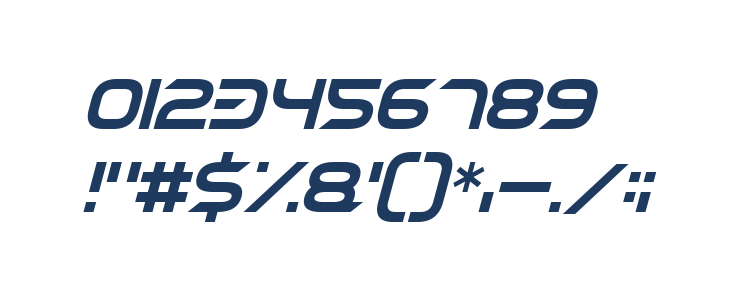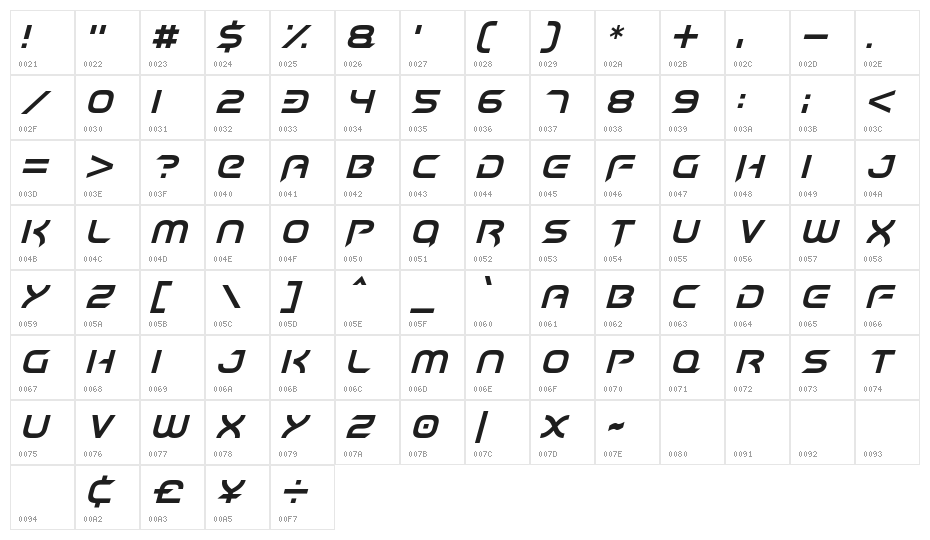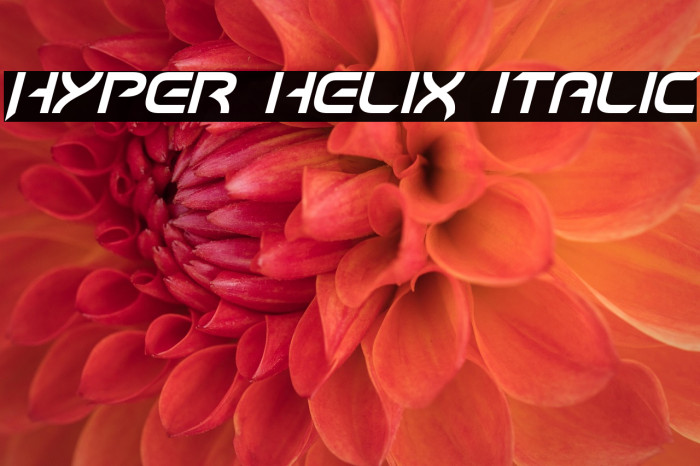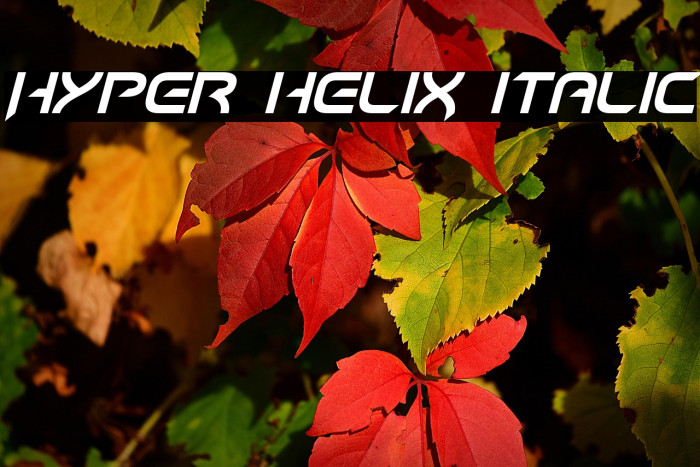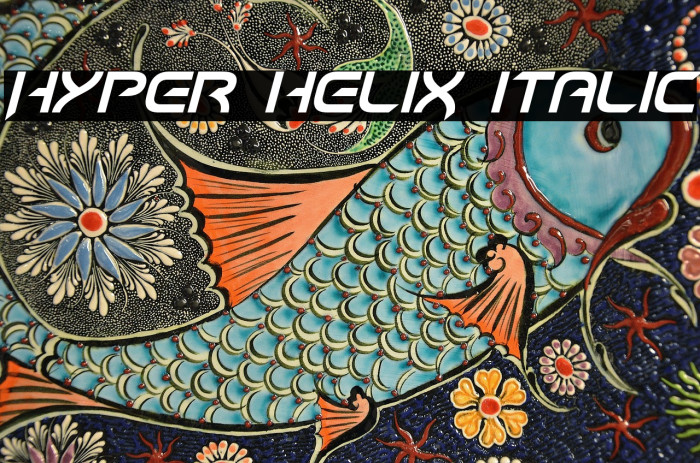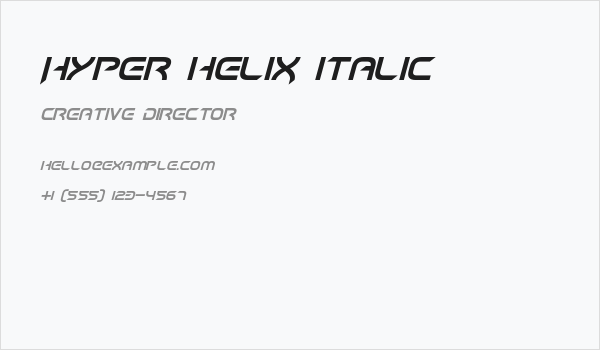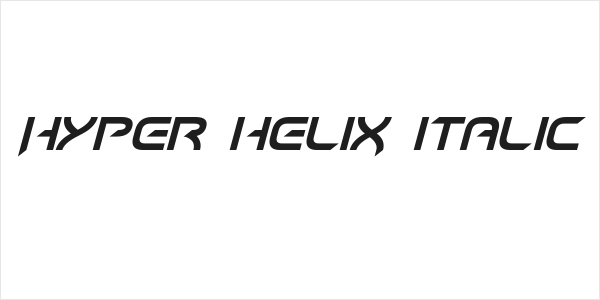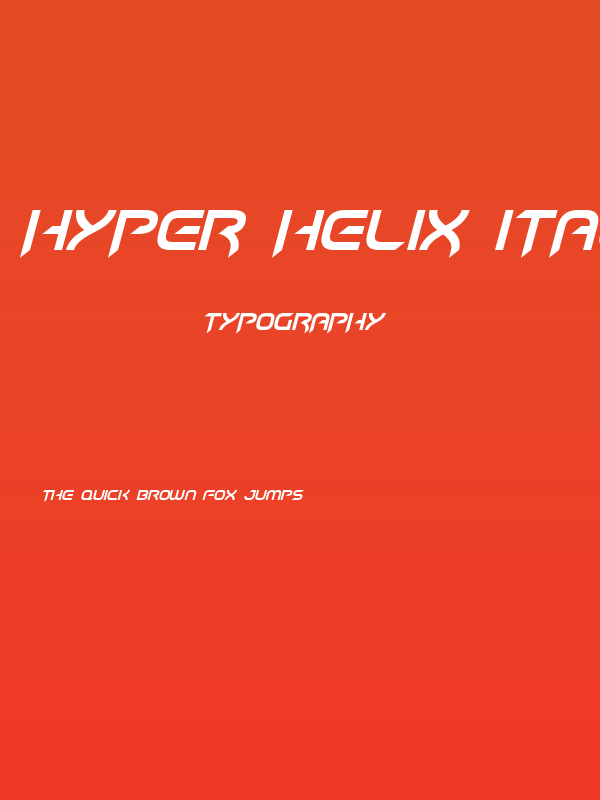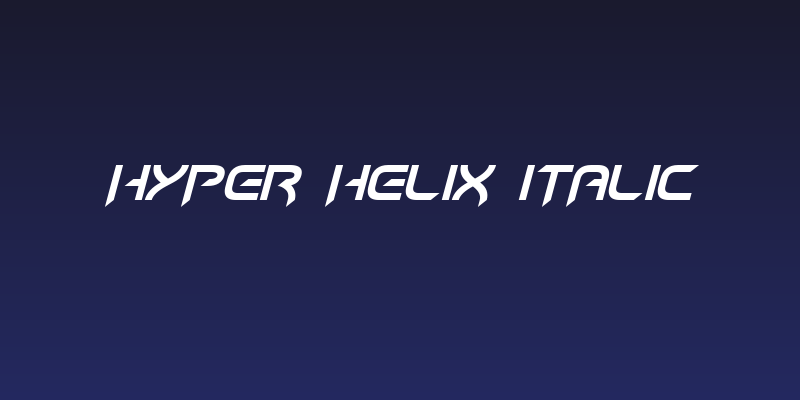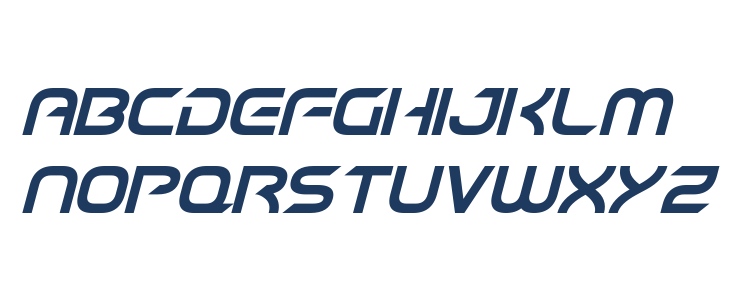
Hyper heliX Italic Font
Hyper heliX Italic Description
This font features a futuristic and dynamic design, characterized by sharp angles and a forward-leaning italic style. The letters are sleek and modern, with a distinct geometric influence that gives them a sense of motion and speed. The uppercase and lowercase letters maintain a consistent style, with the lowercase being slightly more compact. Numbers and special characters are designed to match the overall aesthetic, ensuring a cohesive look across all text elements. The font's unique style makes it stand out, ideal for projects that require a modern and edgy appearance.
| Proposed Projects | Ideal for technology branding, sci-fi themed projects, video game titles, and modern advertising campaigns. |